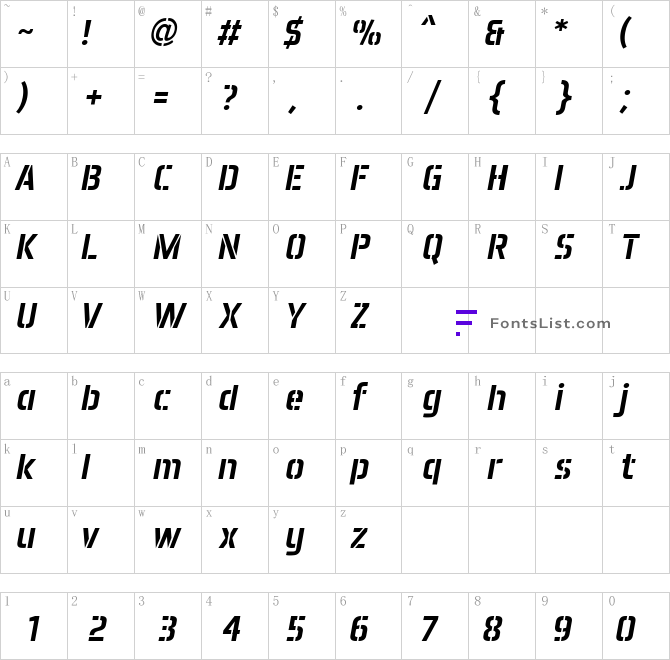
- Font Name:Aero Matics Stencil
Aero-Matics-Stencil-Italic-copy-1-.ttf is a very beautiful artistic font, Aero-Matics-Stencil-Italic-copy-1-.ttf is widely used in the design and printing of various books and pictures,Aero-Matics-Stencil-Italic-copy-1-.ttf has a strong visual impact,Aero-Matics-Stencil-Italic-copy-1-.ttf is a commonly used font in newspapers, magazines and books, and is used in posters, e-commerce Poster design, store design, logo design, font design and other fields.Aero-Matics-Stencil-Italic-copy-1-.